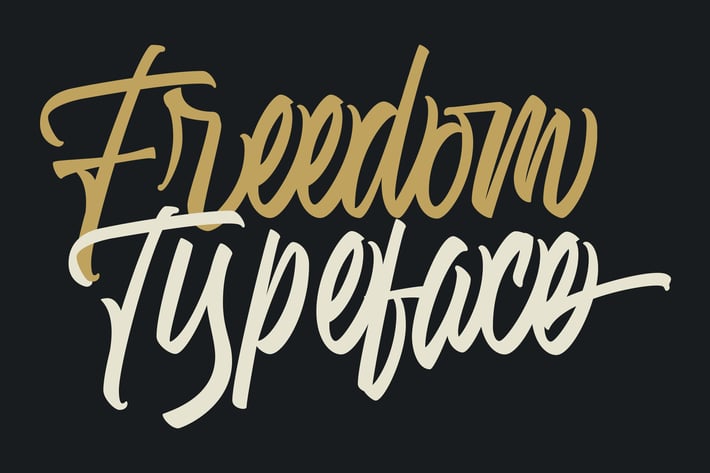
Freedom Typeface
Freedom Typeface that contains a lowercase, uppercase, symbol, and also support multi-language. There’s a lot of ligature in this font. Freedom Typeface also comes with ligatures, stylistic alternates and many more. this font suitable for fashion, branding, catalog and other design what you want.